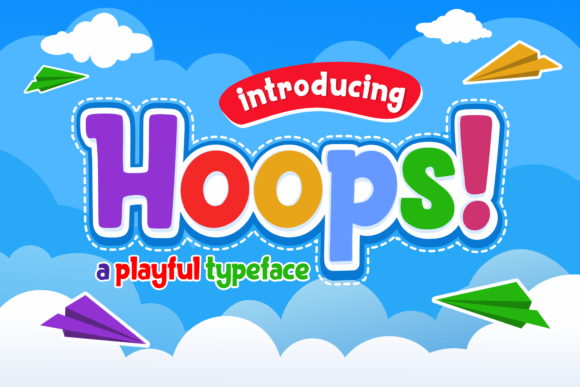
Hoops: A Fun Font for Creative Projects
Hoops is a delightful and charming display font that brings a playful and whimsical feel to any design. Its unique, rounded shapes and cheerful style make it stand out in a sea of more traditional fonts. Whether you're working on a children's project or designing something with a cartoonish vibe, Hoops can add a touch of fun and personality.
What Makes Hoops Special?
Hoops stands out because of its friendly and approachable design. Each letter is crafted with care, featuring soft curves and a sense of movement that feels almost like it’s dancing on the page. This makes it especially appealing for projects where a lighthearted and engaging look is desired.
The font’s character is both bold and expressive, which means it can easily grab attention without being overwhelming. It’s not just about looking good—it’s about making an emotional connection with the viewer through its playful nature.
Where Can Hoops Be Used?
Hoops is incredibly versatile and can be used in a variety of contexts. Here are some practical examples:
- Kids’ Projects: From birthday invitations to classroom posters, Hoops adds a fun element that kids will love.
- Marketing Materials: Use it for social media graphics, logos, or promotional banners to create a memorable brand image.
- Web Design: Incorporate Hoops into website headers, call-to-action buttons, or blog titles to enhance visual appeal.
- Print Media: It works well for flyers, brochures, and even greeting cards, giving them a more personal and creative touch.
- Education: Teachers can use Hoops in lesson plans, flashcards, or interactive activities to make learning more engaging for students.
Why Choose Hoops?
There are several reasons why Hoops might be the perfect choice for your next design project:
- It’s Visually Appealing: The font’s playful style can instantly elevate the look of any design, making it more eye-catching and memorable.
- It’s Easy to Read: Despite its whimsical appearance, Hoops remains legible at various sizes, which is crucial for both digital and print applications.
- It Encourages Creativity: Using Hoops can inspire more creative thinking, especially when working with younger audiences or in educational settings.
- It’s Adaptable: Whether you’re creating something for a child or a professional audience, Hoops can be styled and used in different ways to suit your needs.
Getting Started with Hoops
If you're new to using display fonts like Hoops, there are a few things to keep in mind:
First, consider the context in which you’ll be using the font. Will it be for a casual project or a more formal one? Hoops is best suited for designs that require a light-hearted and playful tone.
Next, think about the audience. If your target audience includes children or those who enjoy a more colorful and fun aesthetic, Hoops will likely resonate well with them.
Also, pay attention to typography pairing. While Hoops is great on its own, combining it with a more traditional serif or sans-serif font can help balance the overall design and improve readability.
Real-World Applications
Let’s look at a few real-world scenarios where Hoops has been successfully used:
A local bakery used Hoops in their signage and packaging to create a warm and inviting atmosphere. The font helped convey a sense of joy and community, which aligned perfectly with their brand identity.
An online educator incorporated Hoops into their course materials to make learning more engaging for young students. The result was a more interactive and enjoyable learning experience.
A small business owner used Hoops in their social media posts and website headers to build a unique and recognizable brand presence. The font helped differentiate their business from competitors and attracted a loyal following.
Final Thoughts
Hoops is more than just a font—it’s a tool for creativity and expression. Whether you're working on a personal project, a professional design, or something in between, this font can add a special touch that sets your work apart.
By understanding its strengths and considering how it fits into your specific needs, you can make the most of Hoops and bring a fresh, fun energy to your designs.